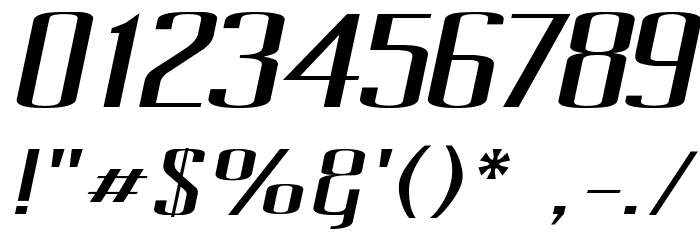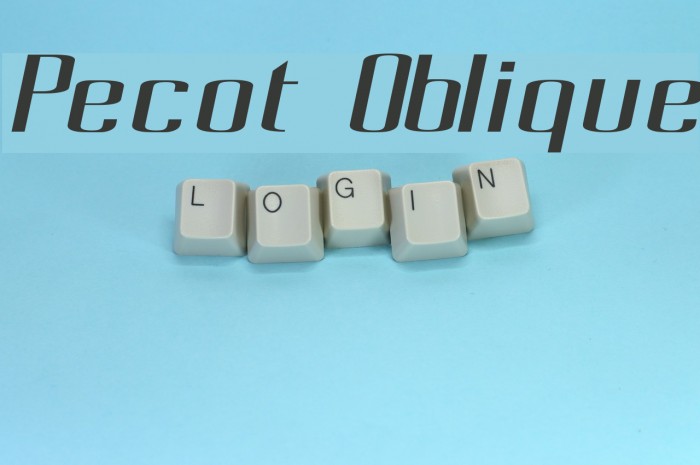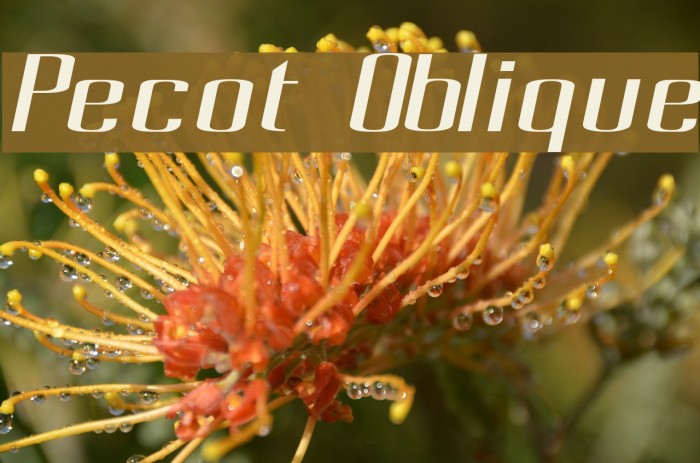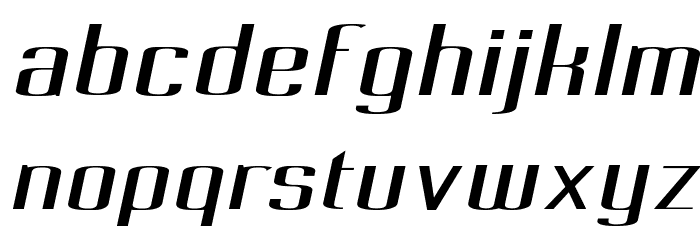
Pecot Oblique Font
Pecot Oblique Description
This font exhibits a sleek and modern oblique style, characterized by its slanted and elongated letterforms. The design features sharp angles and clean lines, giving it a dynamic and forward-moving appearance. The uppercase and lowercase letters maintain a consistent slant, enhancing the sense of motion. The numerals are bold and easily distinguishable, complementing the overall aesthetic. Special characters are well-integrated, maintaining the font's cohesive look. This typeface is ideal for projects that require a contemporary and energetic feel.
A sleek, modern oblique font with sharp angles and a dynamic appearance from Formal fonts.
- Proposed Projects: Ideal for branding, advertising, sports team logos, and modern editorial design.
- Use Case: Headlines, Logos, Branding